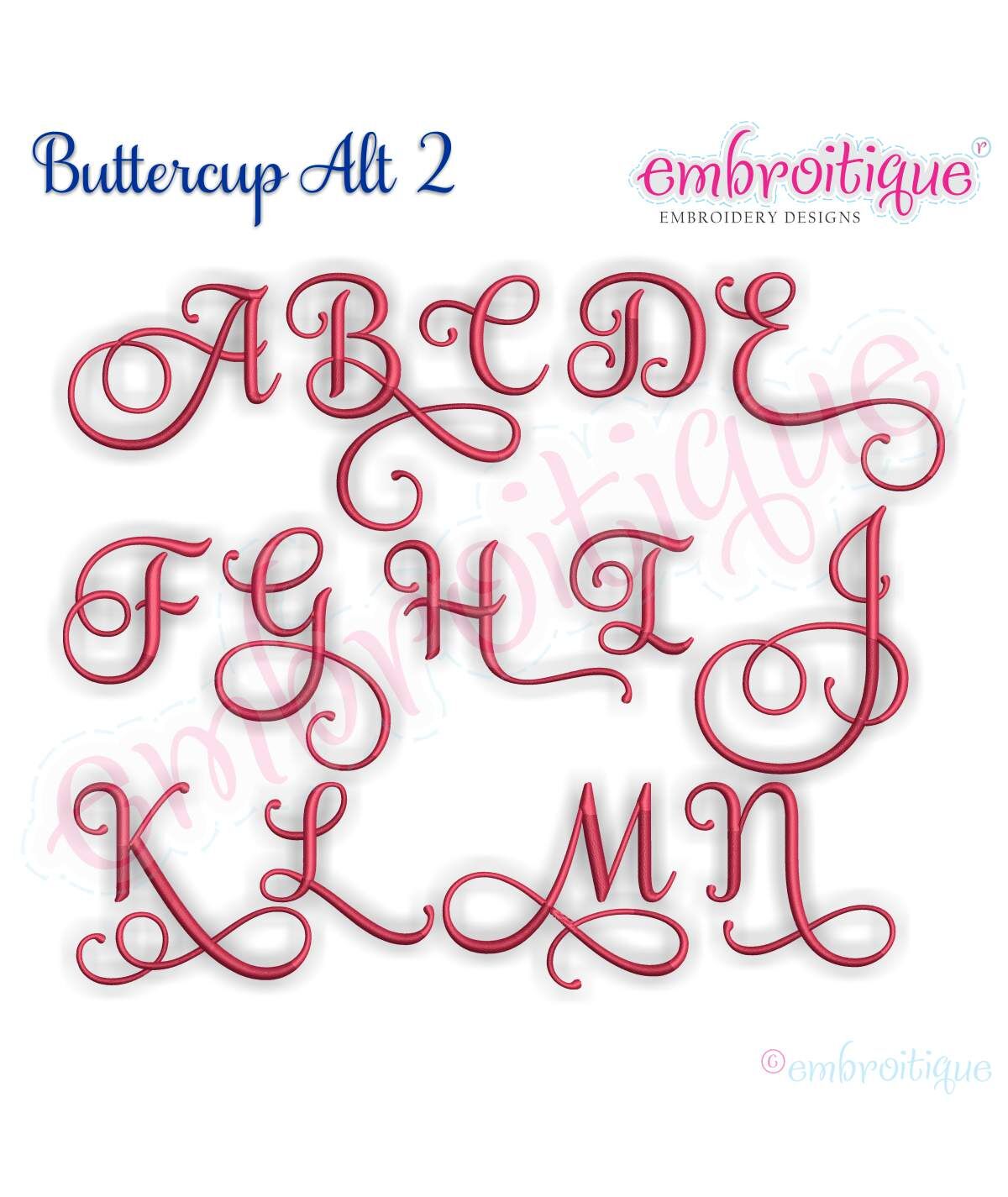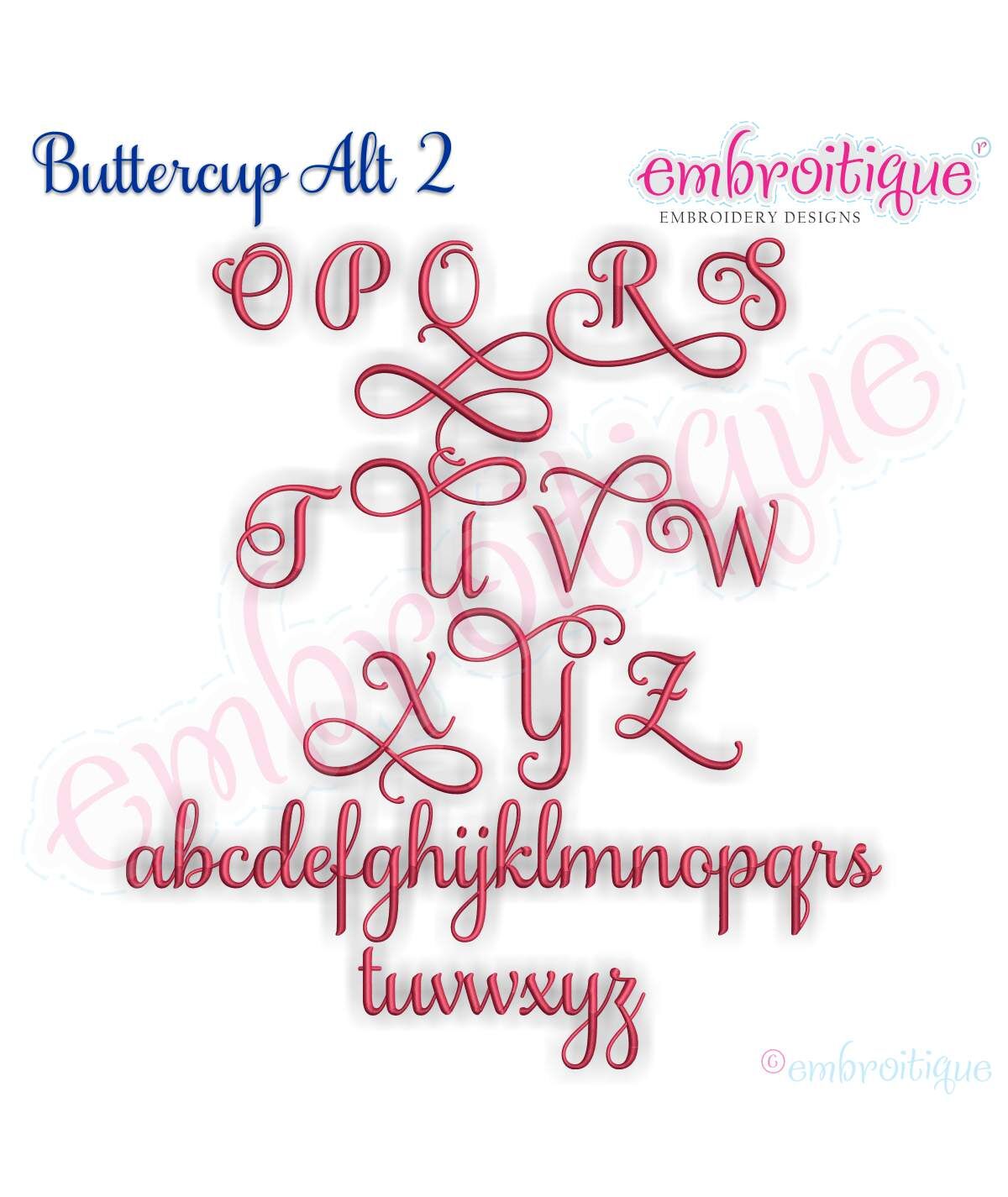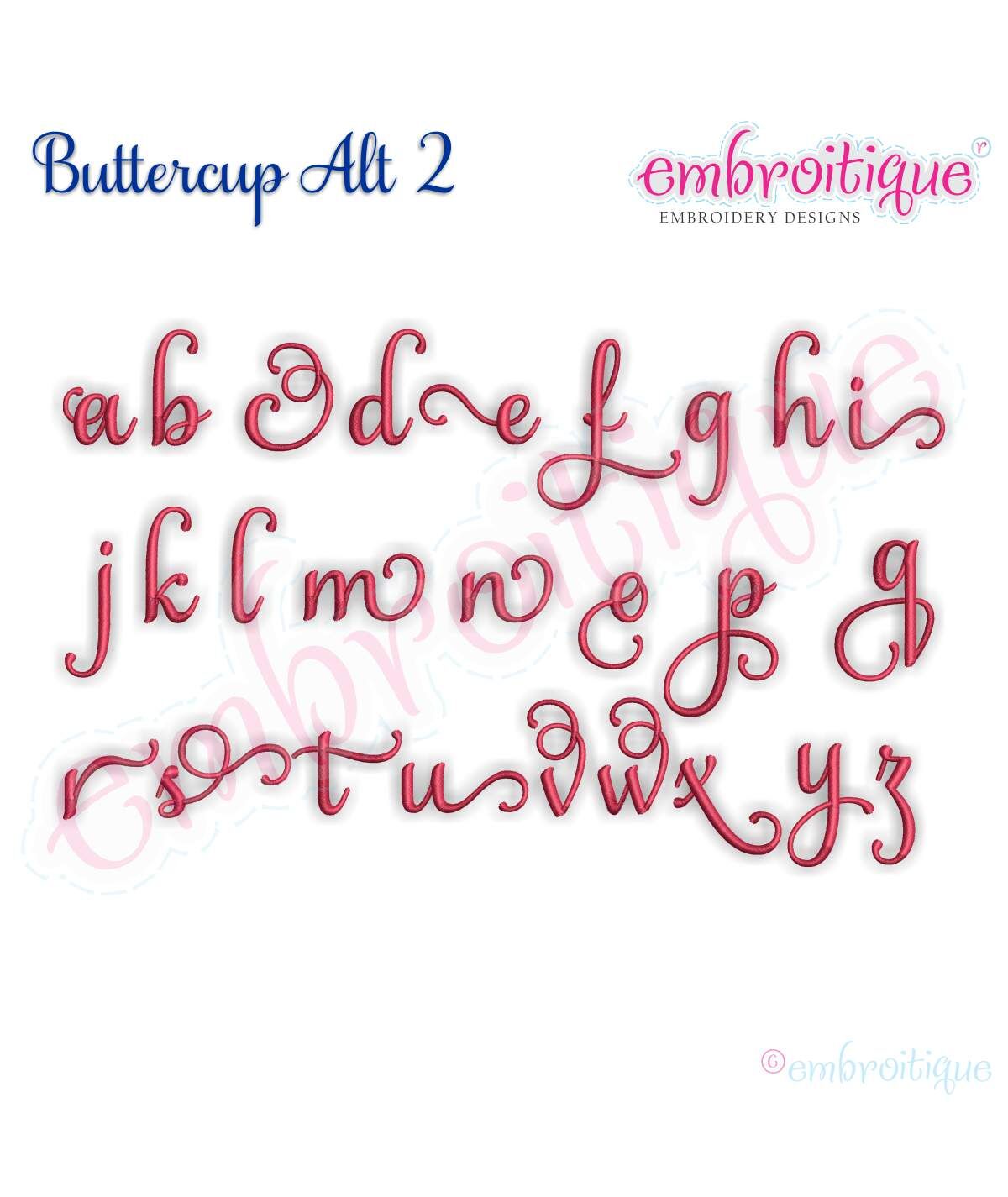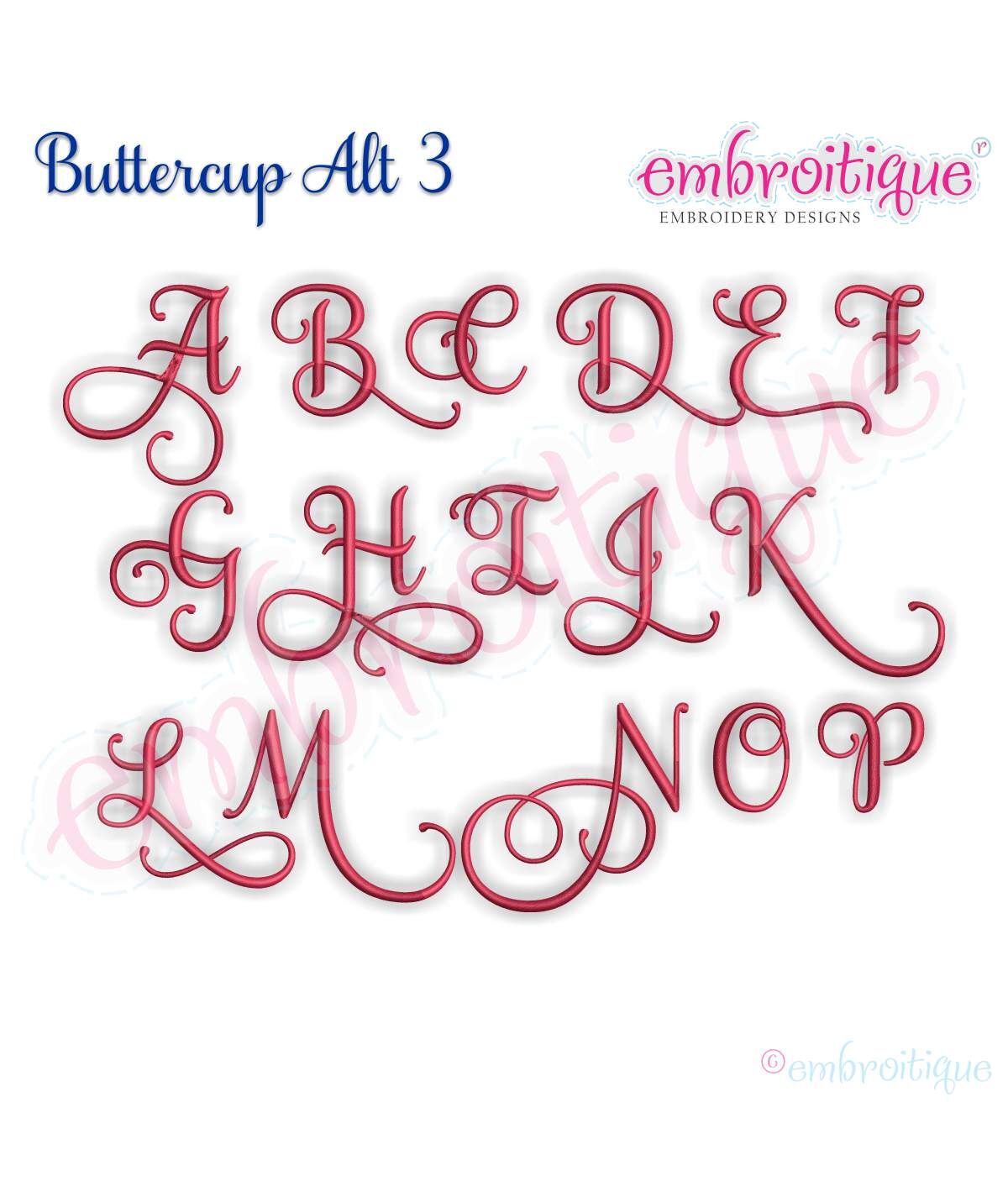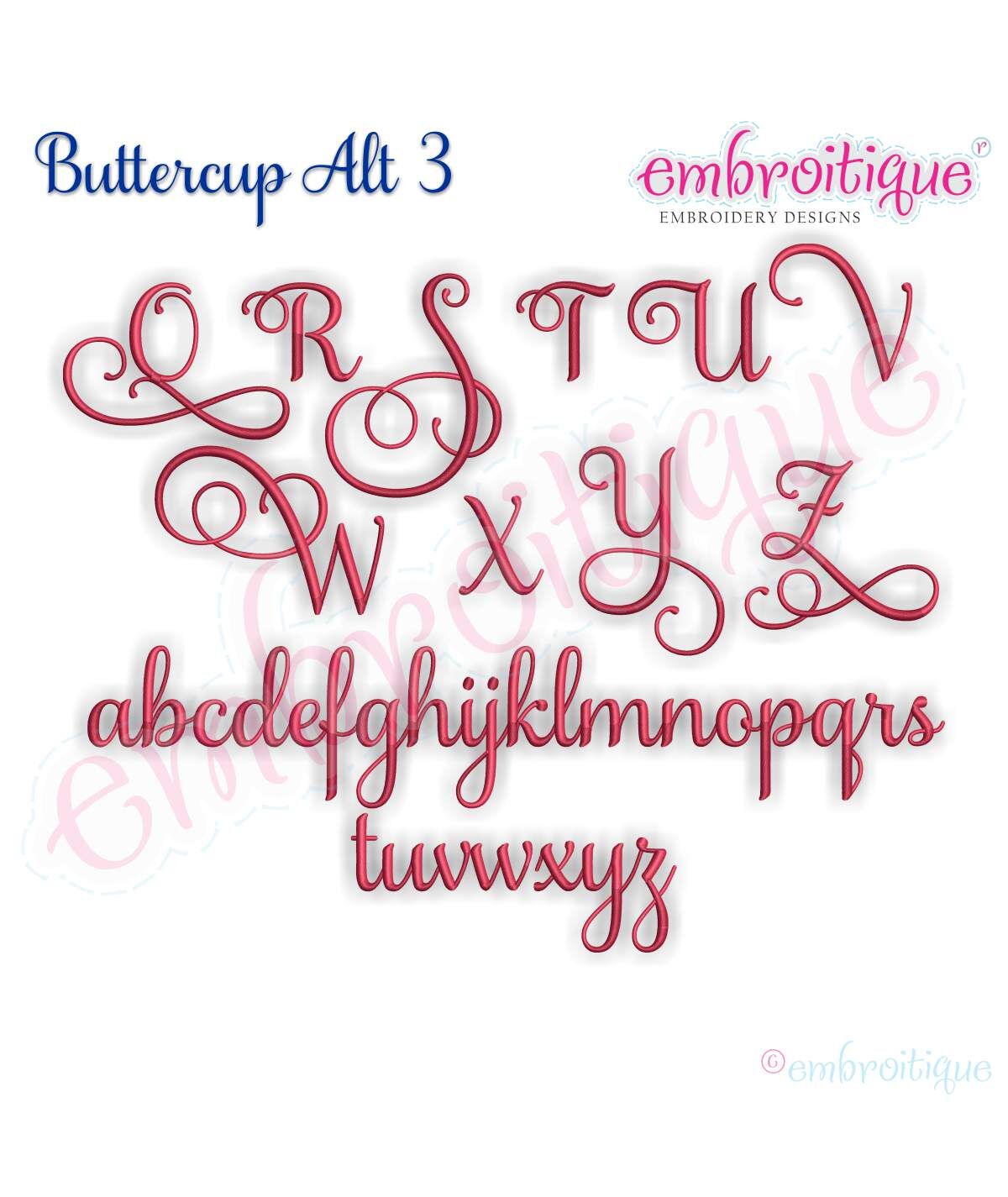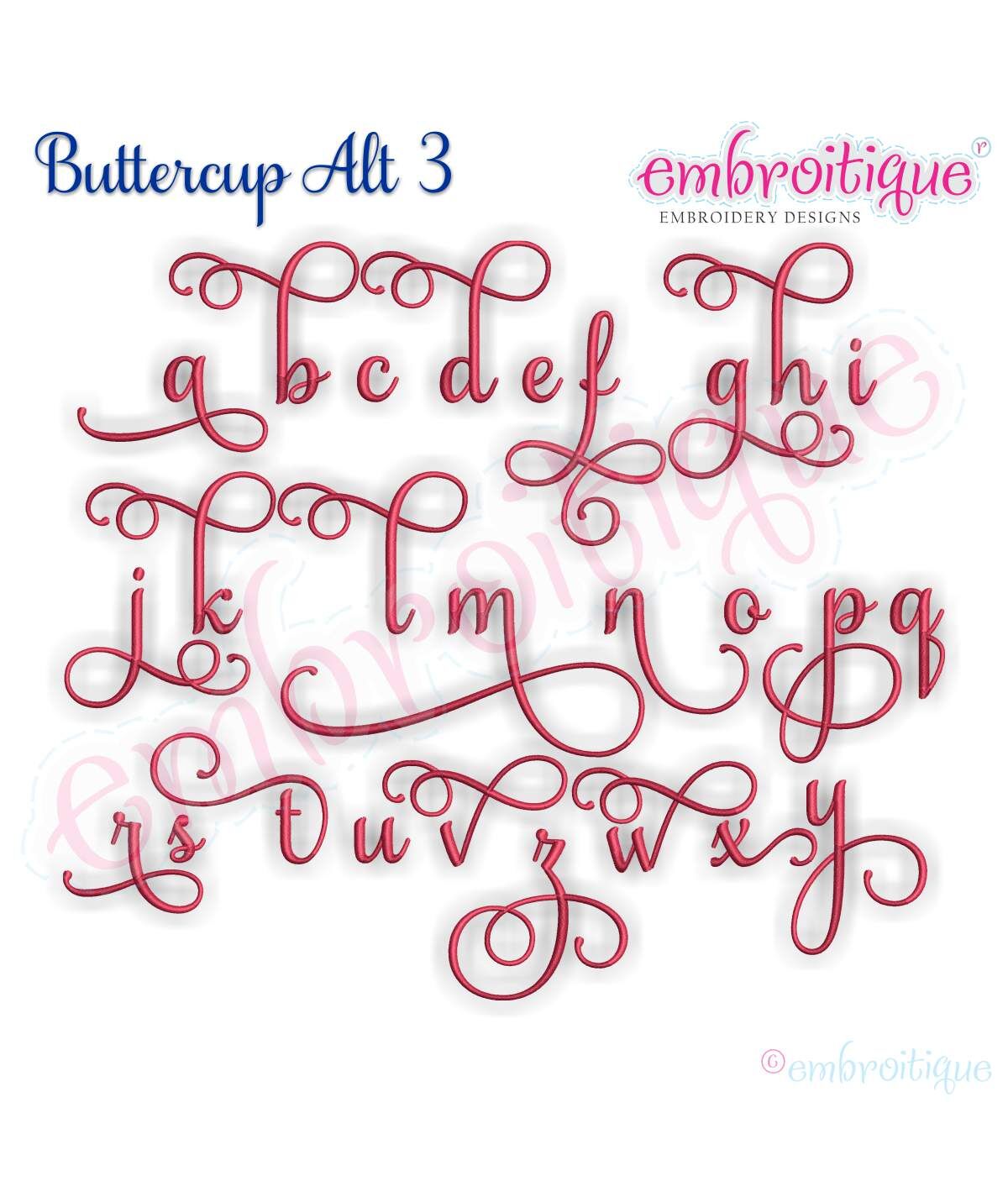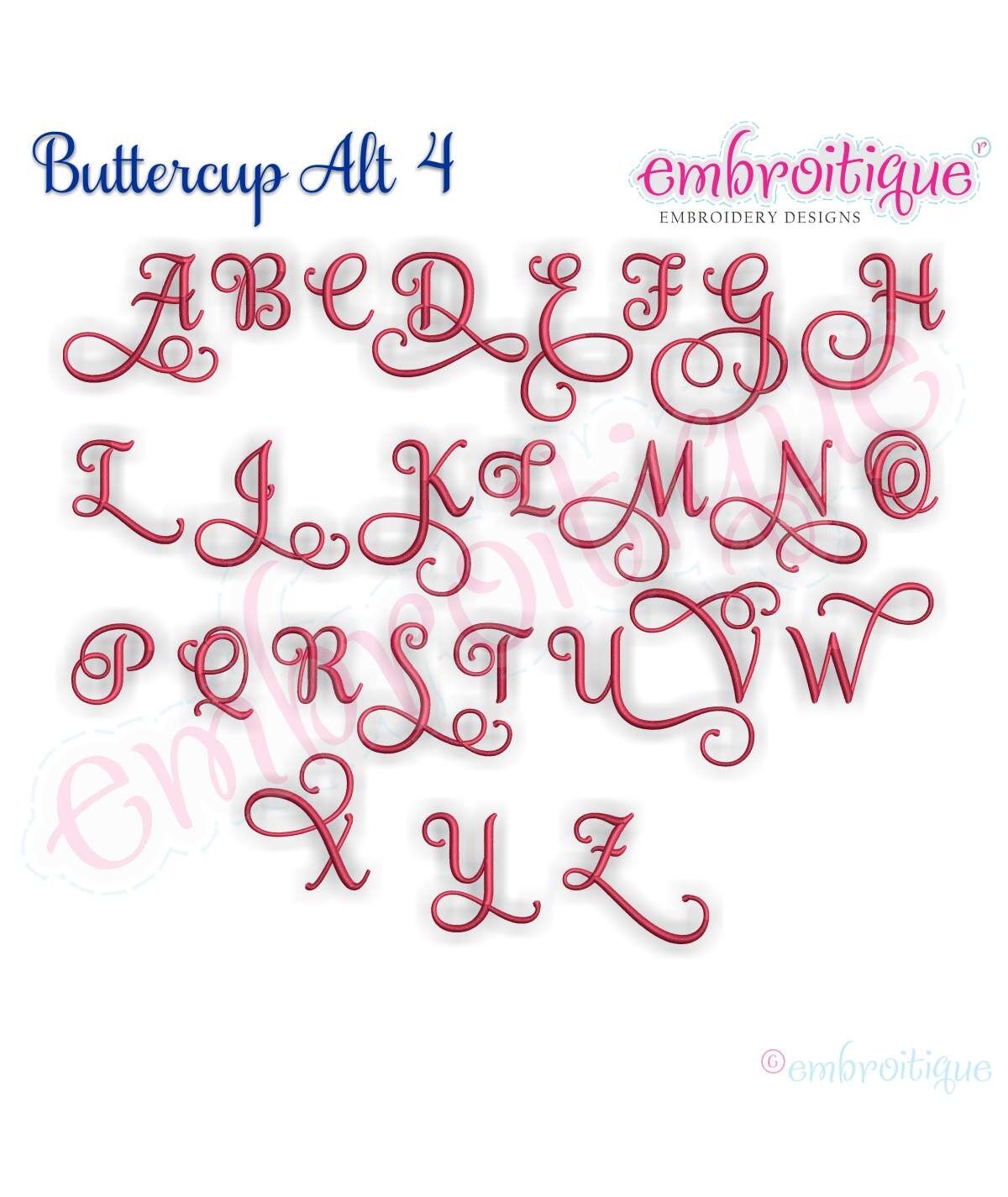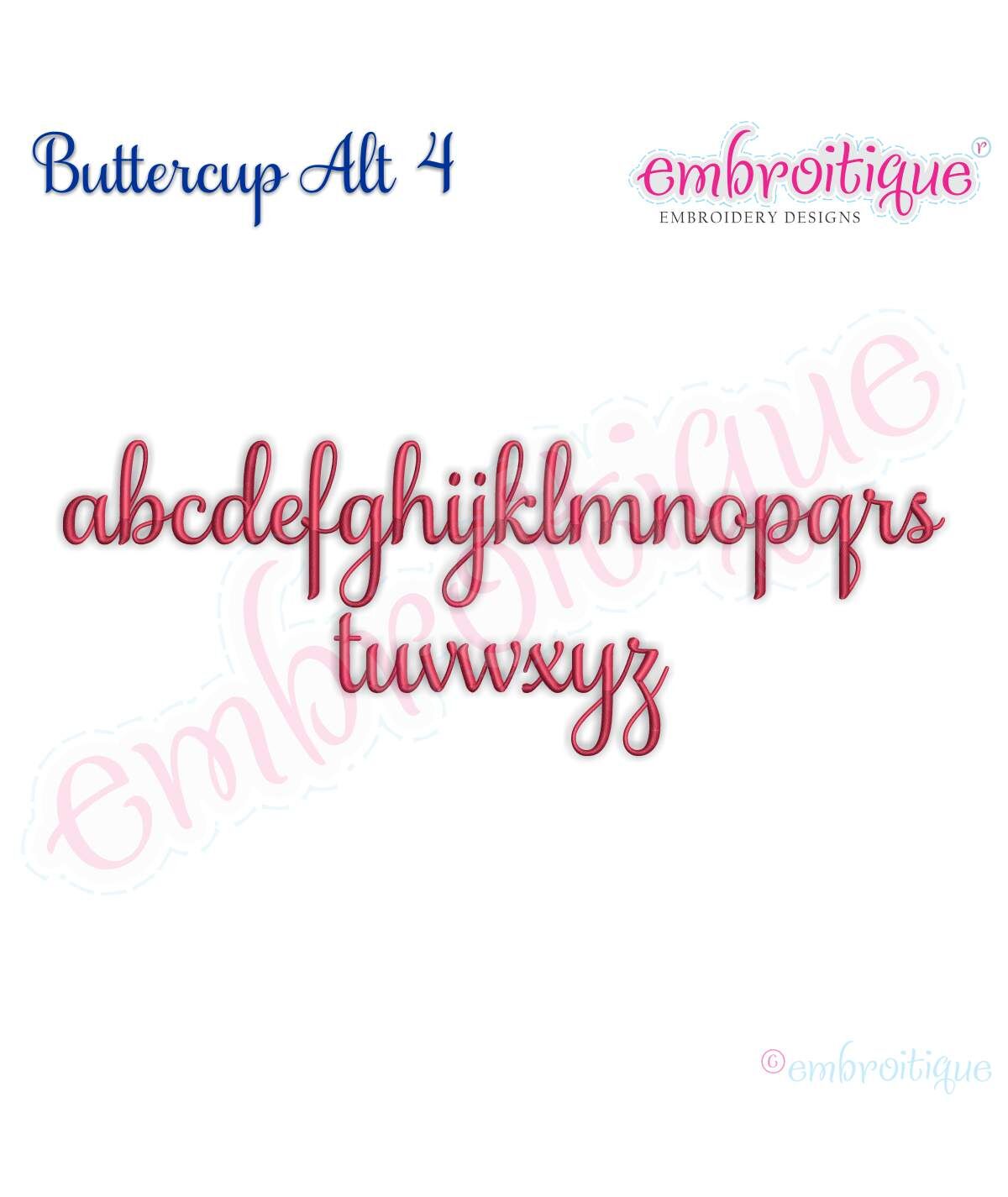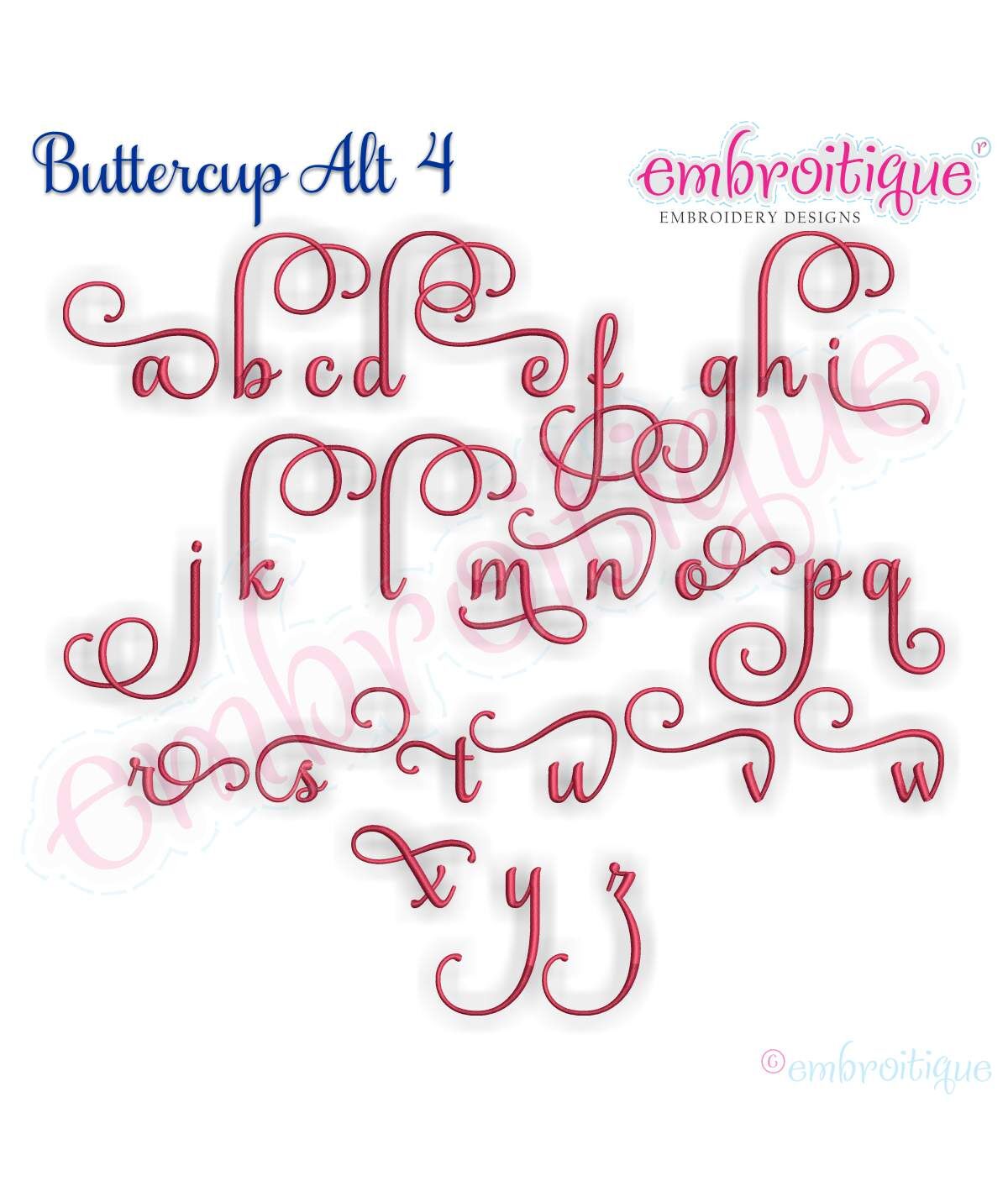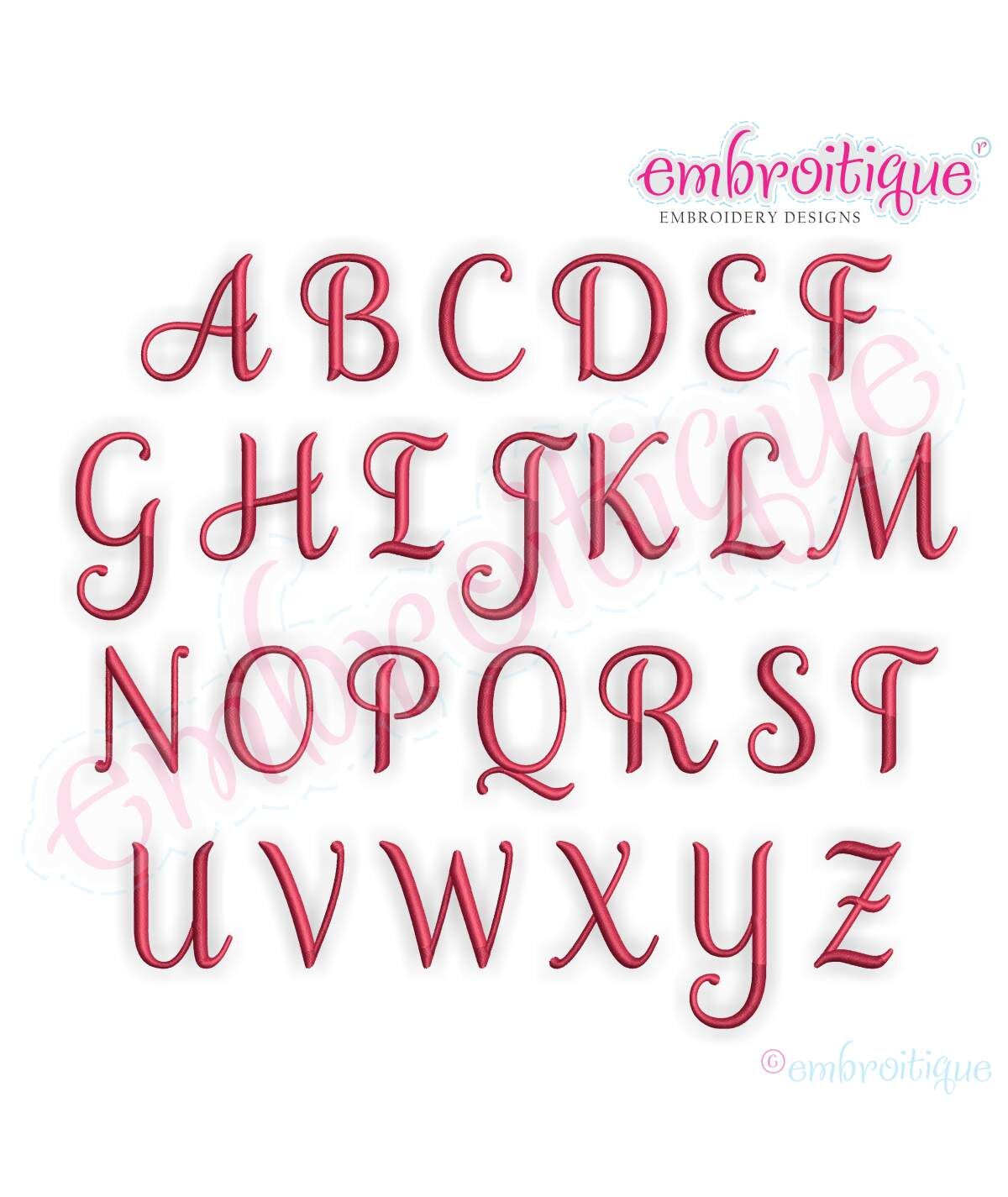
Buttercup Calligraphy Monogram Super Set **SMALL** - Basic and ALL Alternate sets included!
This is a collection of all the SMALL Buttercup Monogram sets together at a discounted price. Â All of the letters in each set are designed and scaled to work with the buttercup basic - small monogram set, and named accordingly. Â For instance, the 1" Capital A in the Alternate set 4 is obviously larger than 1". Â However, it is designed so you can mix and match letters from all the sets to create beautiful combinations without having to worry about the proportions of the letters being "off". Â